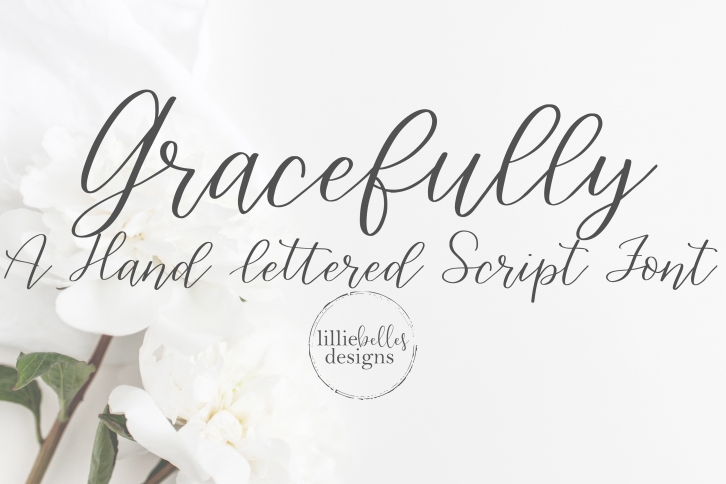
Gracefully is a gorgeous font that was realeased on April 30, 2019. The font can be used in many style contexts and design environments. Perfect for invitations, magazines, websites, logos, and more! It was designed by lillie belles designs and the file size is 7.95 MB. Thanks for checking out this font!